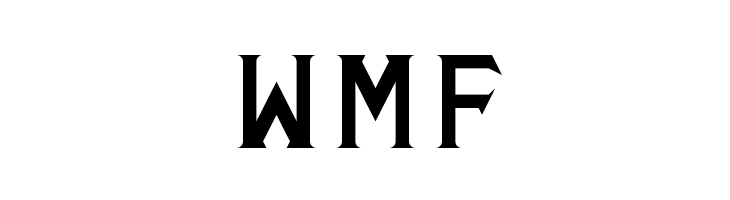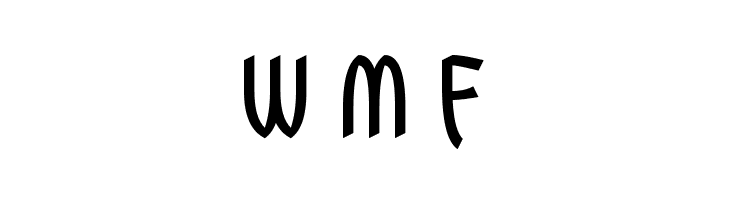
A playful, bubble-like font with rounded edges and consistent thickness.
A bold, textured font with a vintage, industrial feel.
A bold, aggressive, hand-drawn font with jagged, irregular strokes.
A bold, decorative font with a vintage style and intricate design elements.
A decorative, pixelated font with abstract, symbol-like characters.
A modern, geometric font with clean lines and a minimalist aesthetic.
A bold, pixelated font with a retro digital style.
A hollow, pixelated font with a digital, futuristic style.
A bold, geometric font with playful and abstract character shapes.
A bold, geometric font with a futuristic and modern design.
A bold, geometric italic font with a futuristic and dynamic style.
A geometric, futuristic font with bold, abstract shapes and symmetrical design.
A bold, italicized decorative font with geometric and modern elements.
A futuristic, geometric outlined font with a modern and abstract style.
A futuristic, outlined, and hollow font with geometric precision.
A geometric, futuristic font with outlined characters and a bold, abstract style.
A playful, hand-drawn font with bold, rounded characters.
A dynamic, hand-drawn font with artistic and expressive strokes.
A bold, theatrical font with dramatic mask motifs and elegant script style.
A playful, decorative font with cartoon characters integrated into bold serif letters.
A bold, energetic brush-style font with irregular, jagged strokes.
A bold, geometric font with an industrial, futuristic style.
A sharp, angular font with a mythical, rune-like appearance.
A bold, playful serif font with rounded serifs and a whimsical style.
A bold, italicized font with angular, condensed letterforms and medium contrast.
A bold, distressed font with a vintage and rugged appearance.
A bold, geometric font with a condensed and striking design.
A bold, outlined decorative font with geometric precision.
A bold, geometric font with sharp angles and high contrast.